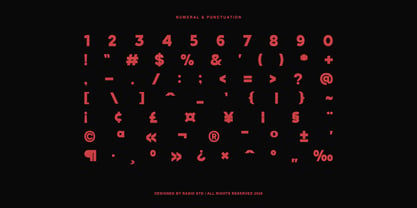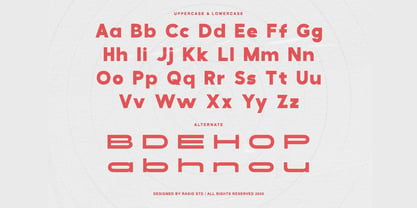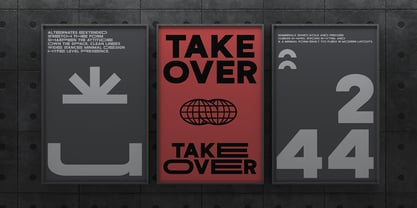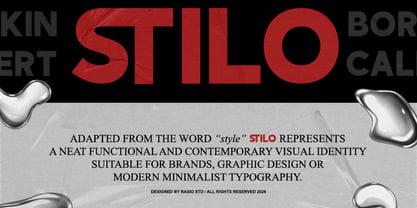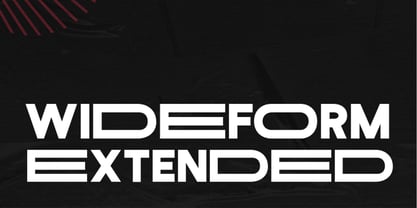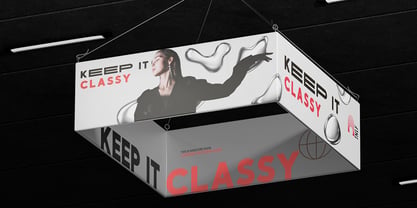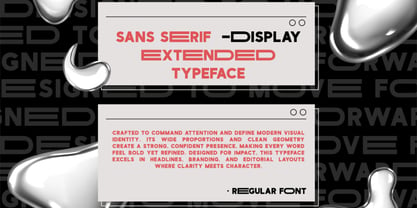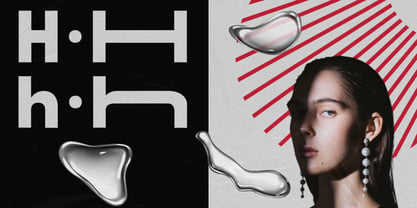
Wideform
La familia tipográfica Wideform fue diseñada por Fajar Indra y publicada por Rasio Studio. Wideform contiene 1 estilos. Más información sobre esta familia
Wideform is a contemporary extended sans serif font for big, bold, and commanding typography. With its wide proportions, clean lines, and modern geometric shapes, this typeface makes a strong visual impact in headlines and display settings. Wideform is perfect for creatives, designers, and brands that need a strong and authoritative typographic voice. Its wide letterforms and clean geometric styling make it ideal for large‑format headlines, poster titles, brand identities, web hero sections, corporate signage, packaging, and editorial layouts.